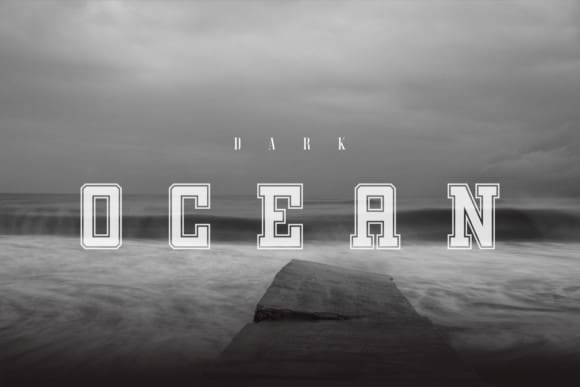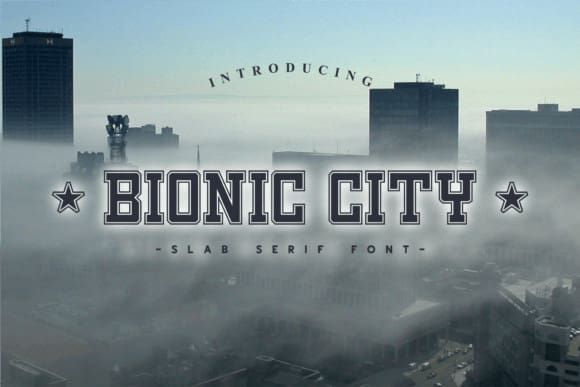
Bionic City Font
Bionic City Font is a bold and authentic slab serif font. It has a cool style and it will make any of your designs stand out. Use it for sports, racing design, or anything sports-related.